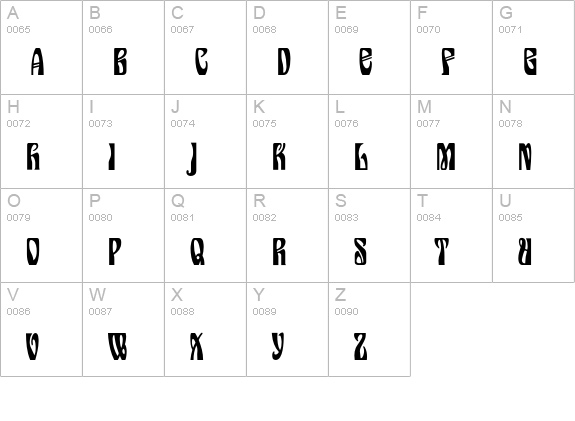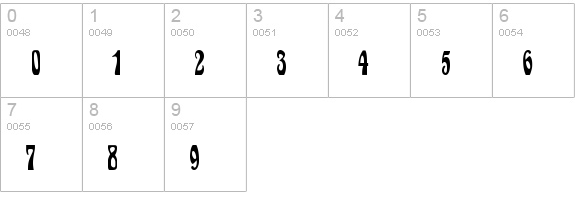
Siegfried-Normal Font Details
Siegfried-Normal is the standard, neutral variant in the Siegfried typeface family \xE2\x80\x94 well suited to general body text, paragraphs, and standard typographic work.
Siegfried-Normal font is a visually stunning typeface that effortlessly combines elegance and modernity. Its clean and sharp lines exude a sense of professionalism and sophistication, making it a versatile choice for a wide range of design projects. With its balanced proportions and exquisite letterforms, Siegfried-Normal font is perfect for both digital and print applications. Whether you're designing a logo, creating a website, or crafting a magazine layout, this font will elevate your designs to new heights. One of the standout features of Siegfried-Normal font is its versatility. It can seamlessly adapt to different design styles, from minimalist and sleek to bold and expressive. This flexibility makes it an excellent choice for designers who are looking to create impactful and memorable visuals. But what truly sets Siegfried-Normal font apart is that it is free. That's right, this incredible font is freely available to download at FontsMarket.com. This means that you can access its beauty and functionality without any cost, allowing you to explore its potential and integrate it into your projects without any limitations. So, if you're searching for a font that combines beauty, versatility, and affordability, look no further than Siegfried-Normal font. With its striking aesthetics and the fact that it is freely available to download at FontsMarket.com, it is the perfect choice for designers, creatives, and anyone who appreciates the power of typography in their work. Embrace the elegance of Siegfried-Normal font and let your designs shine.